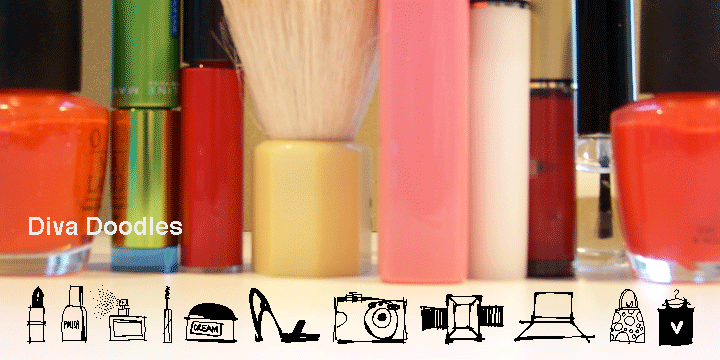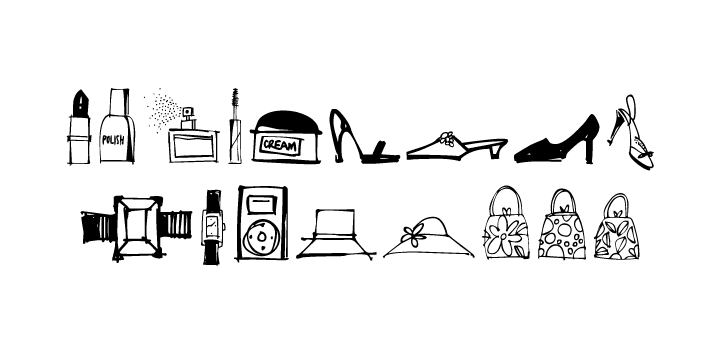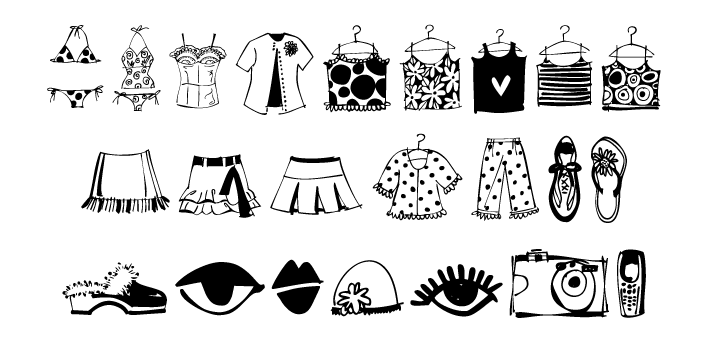
Diva Doodles (1 font)
Diva Doodles is a picture font from Outside the Line. It has 40 little icons... of girl things such as lipstick, nail polish, perfume, shoes, hats, camera, phone, iPod, purses, shirts, skirts and a pair of PJs. If you liked the font Doodles, Doodles Too, Holiday Doodles or Holiday Doodles Too you should love Diva Doodles as it is more of the same style.